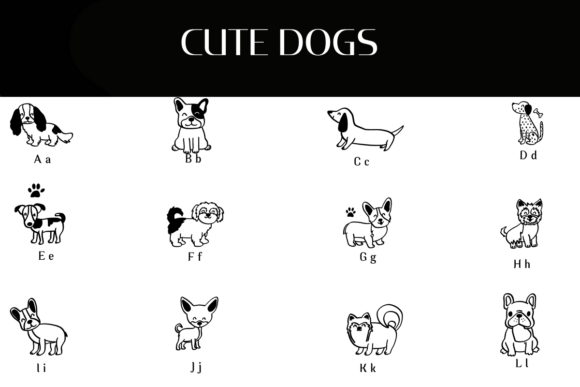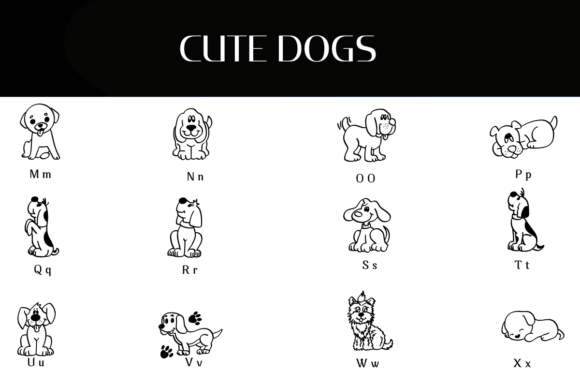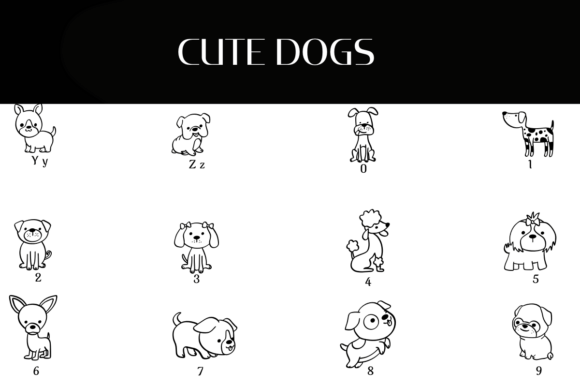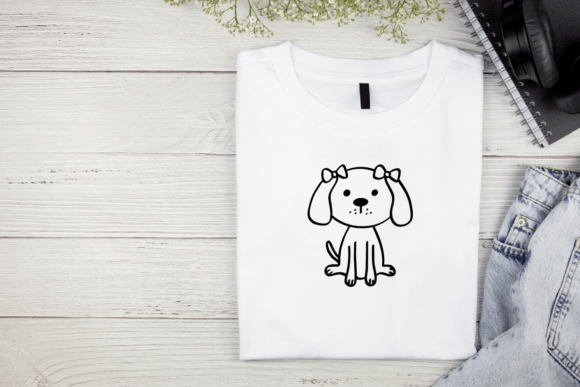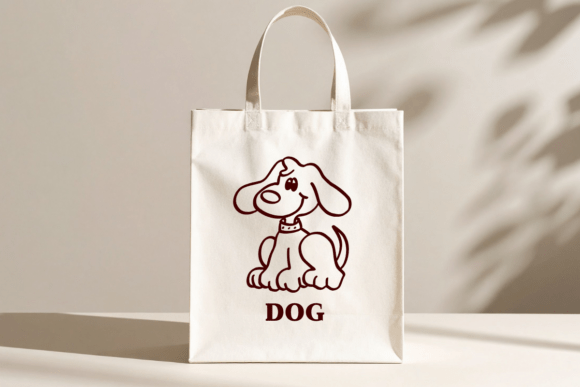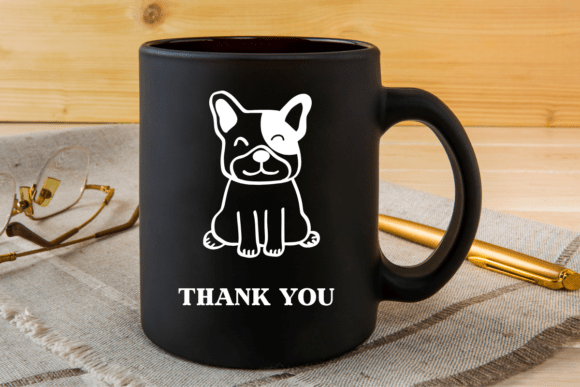
Cute Dogs Font: Add a Playful Touch to Your Creative Projects
Are you looking for a fun and playful font to add to your creative projects? Look no further than Cute Dogs Font! This adorable dingbats font is perfect for designers, crafters, and anyone looking to add a touch of whimsy to their work.
What is Cute Dogs Font?
Cute Dogs Font is a unique dingbats font that features a collection of cute and playful dog illustrations. The font is made up of various dog breeds, each designed to bring a smile to your face. From adorable puppies to happy hounds, this font has everything you need to add a touch of canine charm to your projects.
Why Use Cute Dogs Font?
There are many reasons why Cute Dogs Font is a great addition to your font collection. Here are just a few:
- Perfect for creative projects: Whether you’re working on a design project, crafting a handmade card, or creating a fun DIY sign, Cute Dogs Font is the perfect way to add a playful touch.
- Versatile: Cute Dogs Font can be used for a wide range of projects, from children’s party invitations to dog-themed crafts.
- Unique and eye-catching: This font is sure to grab attention and bring a smile to the faces of your audience.
Project Ideas for Cute Dogs Font
Here are some fun project ideas to get you started:
- Dog-themed crafts: Use Cute Dogs Font to create fun dog-themed crafts, such as dog tags, collars, or leashes.
- Children’s party invitations: Create adorable invitations for a child’s birthday party featuring Cute Dogs Font.
- DIY signs: Use the font to create fun and playful signs for your home or office.
- Social media graphics: Add a playful touch to your social media graphics with Cute Dogs Font.